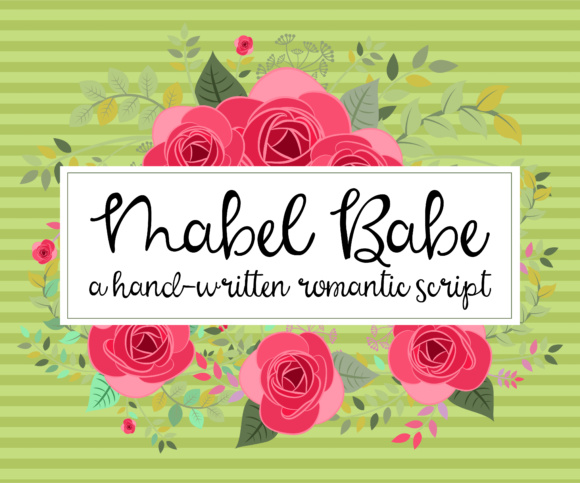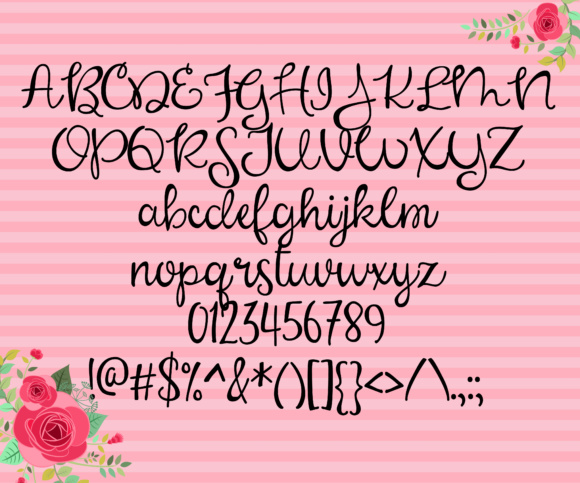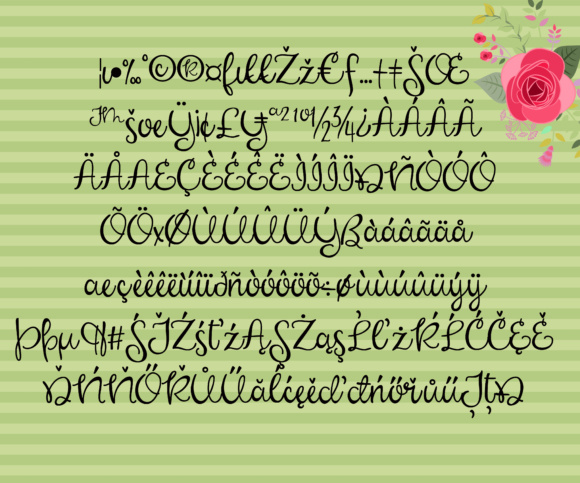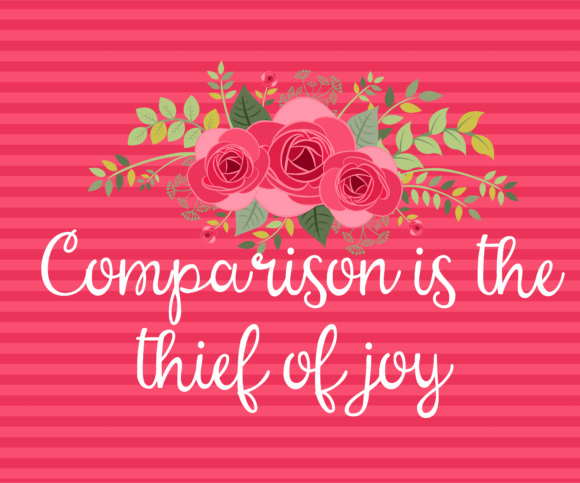
Mabel Rose Font
About Mabel Rose Font
Mabel Rose is a hand-written script that has a romantic feel, capable of making your designs look sophisticated and modern. With its delicate loops, Mabel Rose is a great option for use in light-hearted and pretty project types.